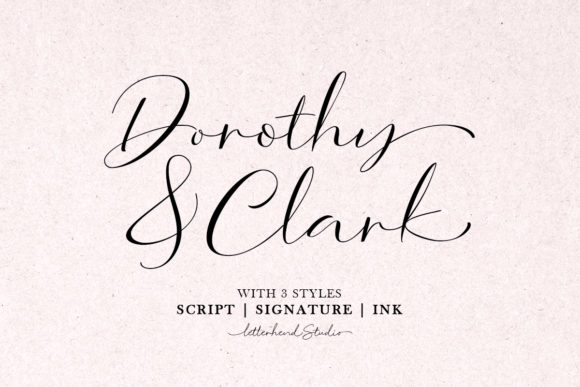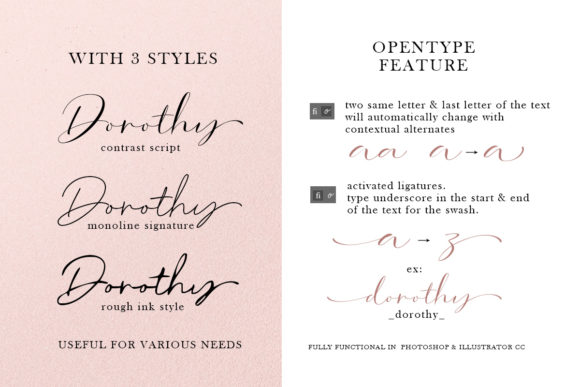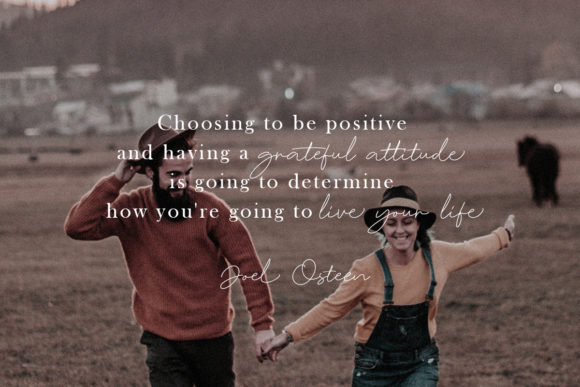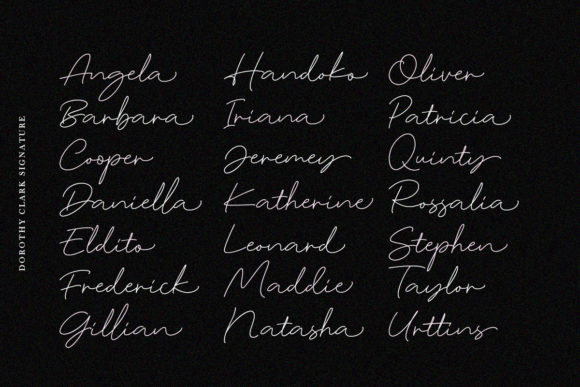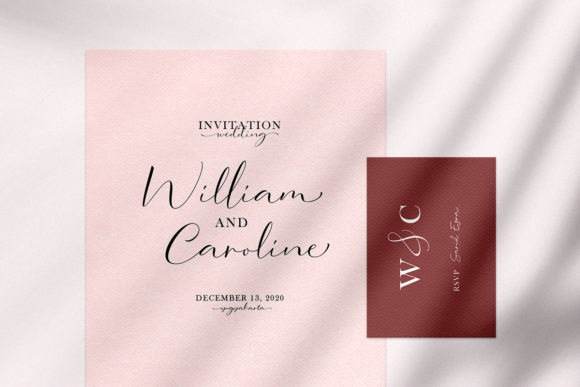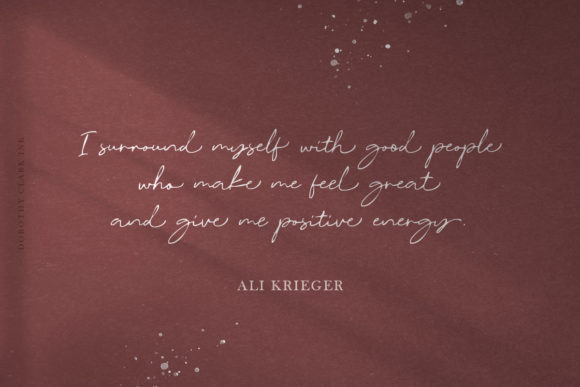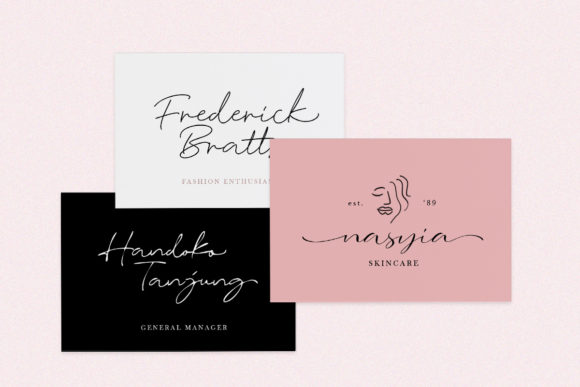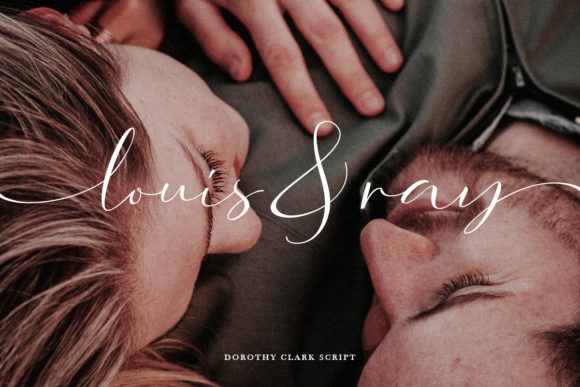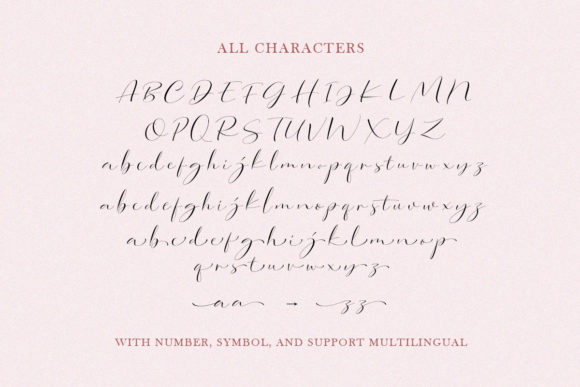
Dorothy Clark Script Font
About Dorothy Clark Script Font
Dorothy Clark is an incredibly stylish and contemporart script. It will add a bold vibe to any design idea!